Typographic Tarot gives you a thought for the day. It’s a tool that gives you something to meditate on today. It uses the Major Arcana tarot cards.
Each card meaning has been paired with a typeface. What does the typeface communicate to you beyond the words? Consider this while you read.
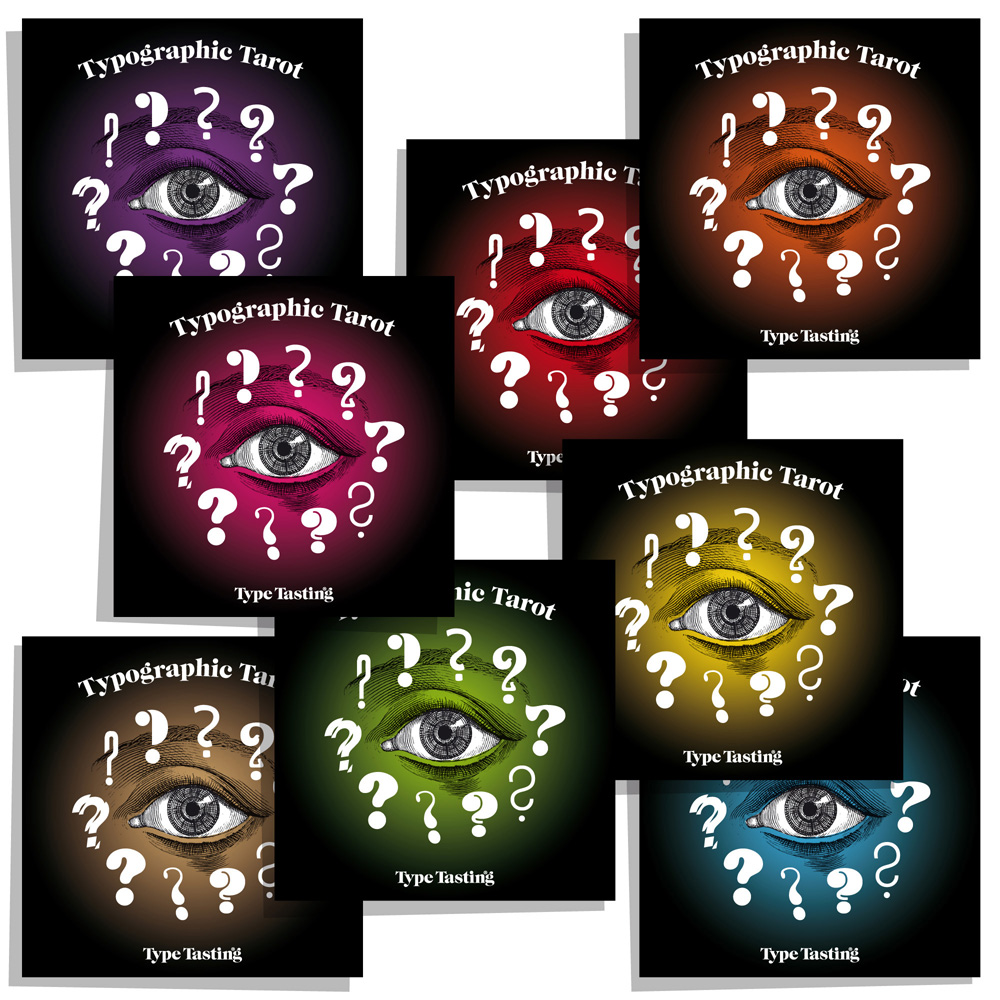
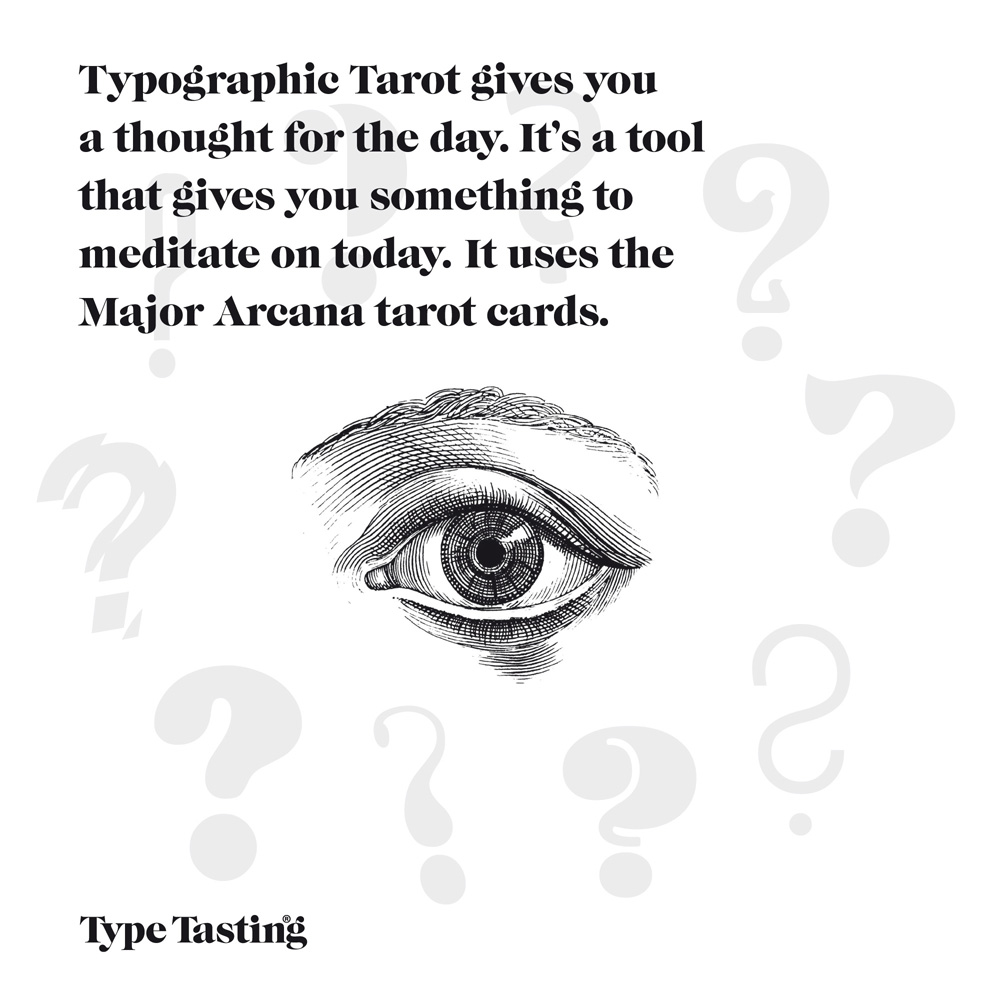
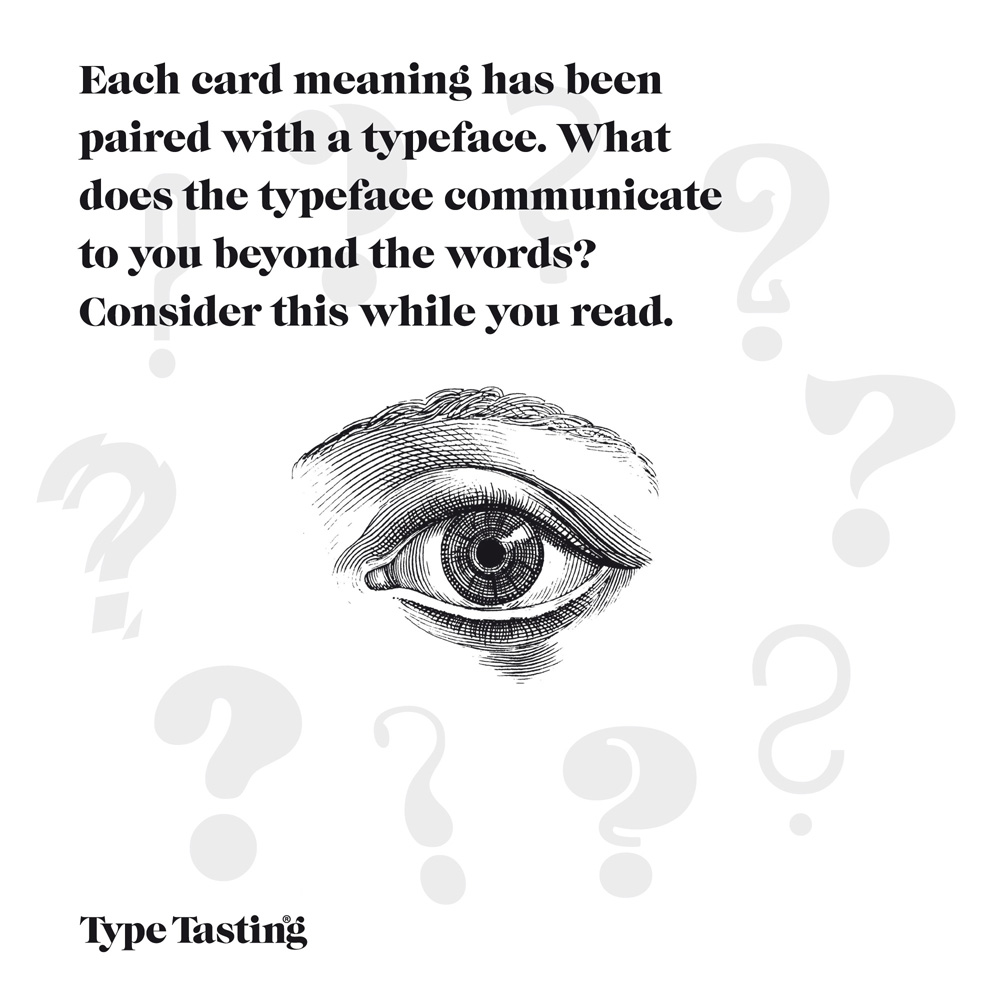
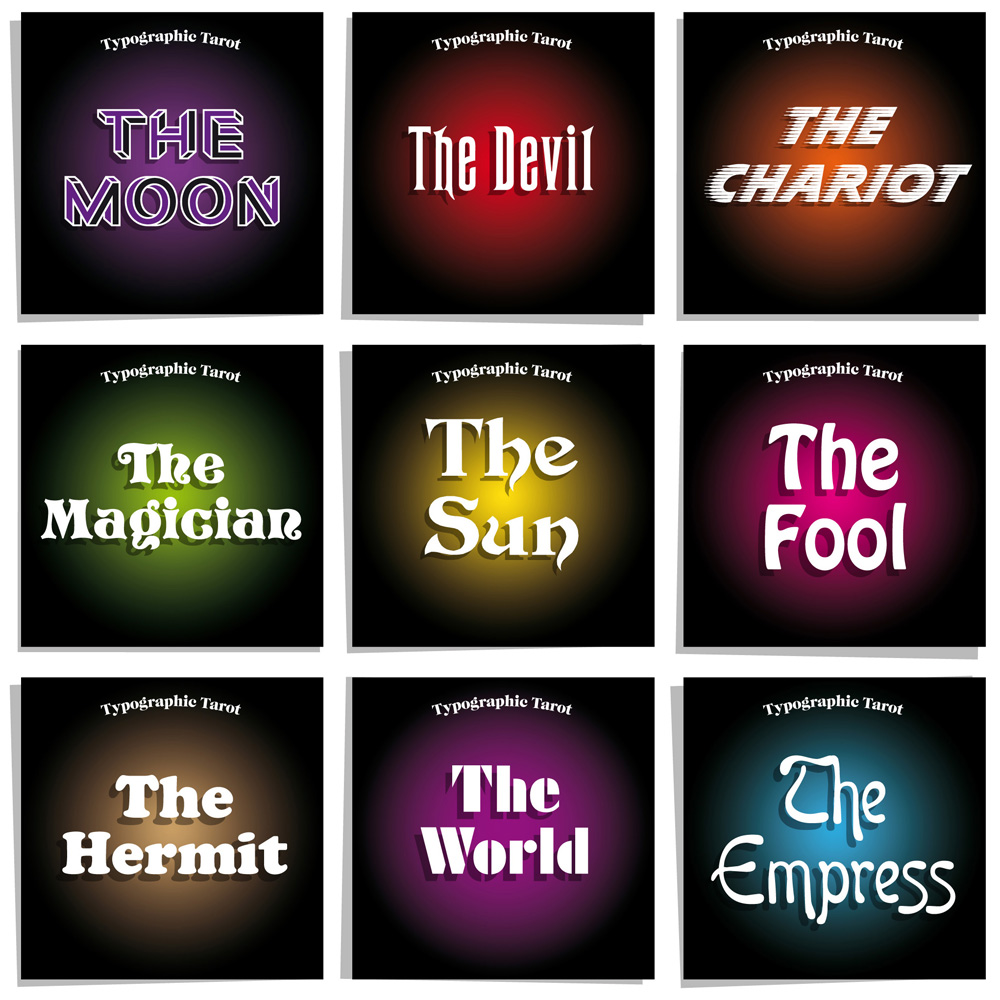
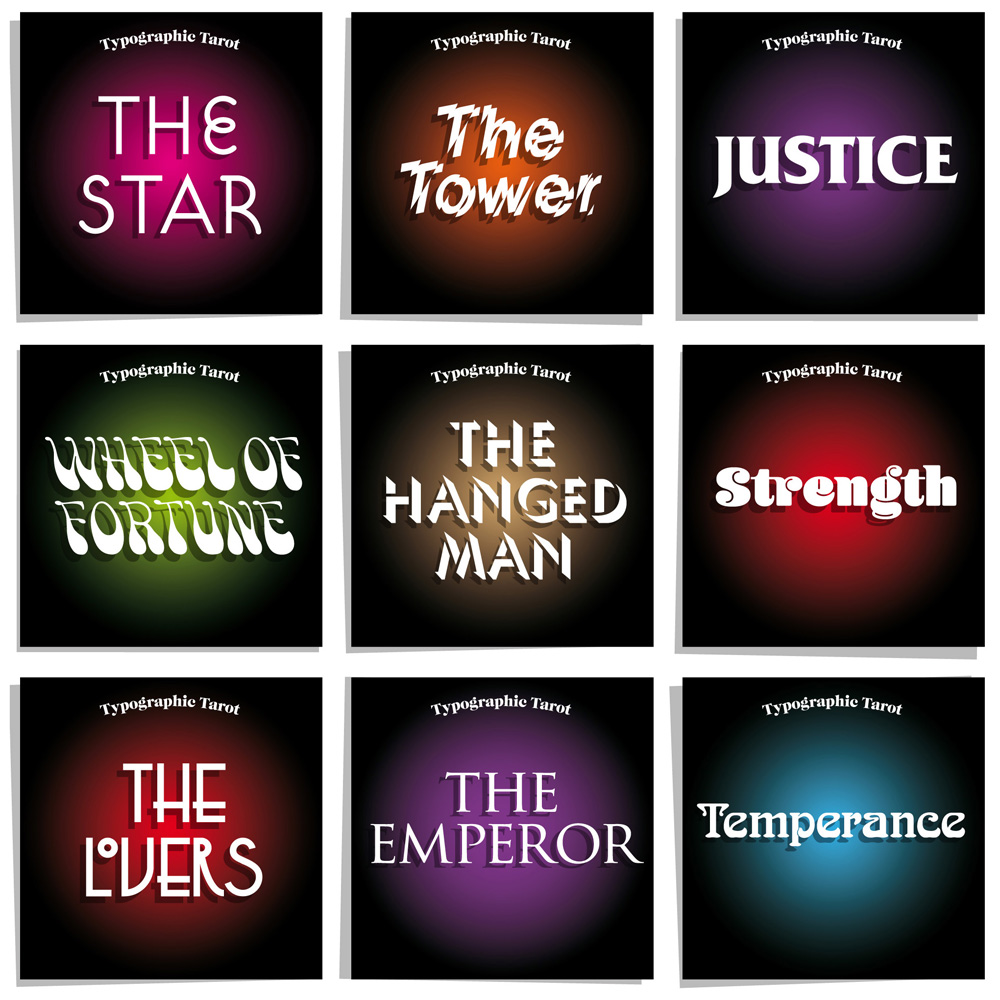
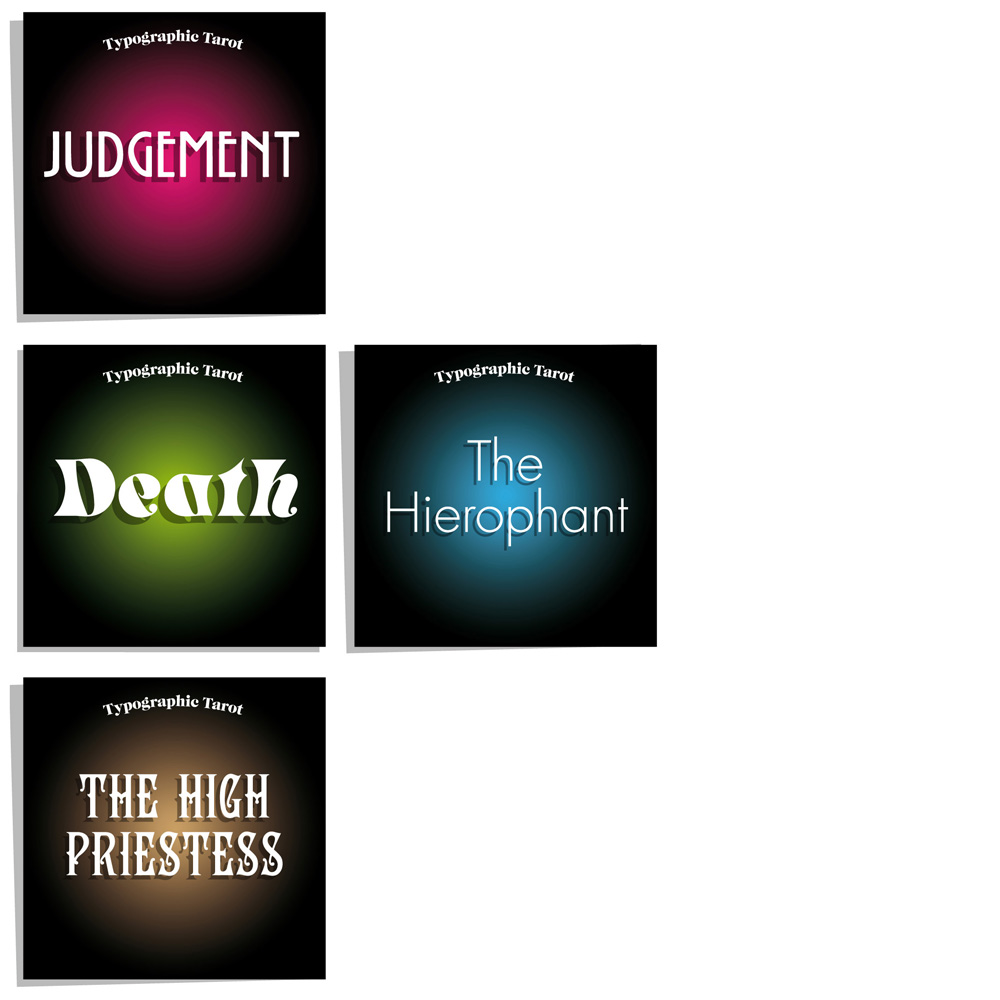
“Would eat a) traditional looking font, Dickensian, fruity, icing sugar. c) trad. appeal, . d) no, looks fun, 70s, but don’t get feeling of quality, little filling. f) could go either way: cheap rubbish, or potentially high quality, large and deep filled. b and e no opinion.”